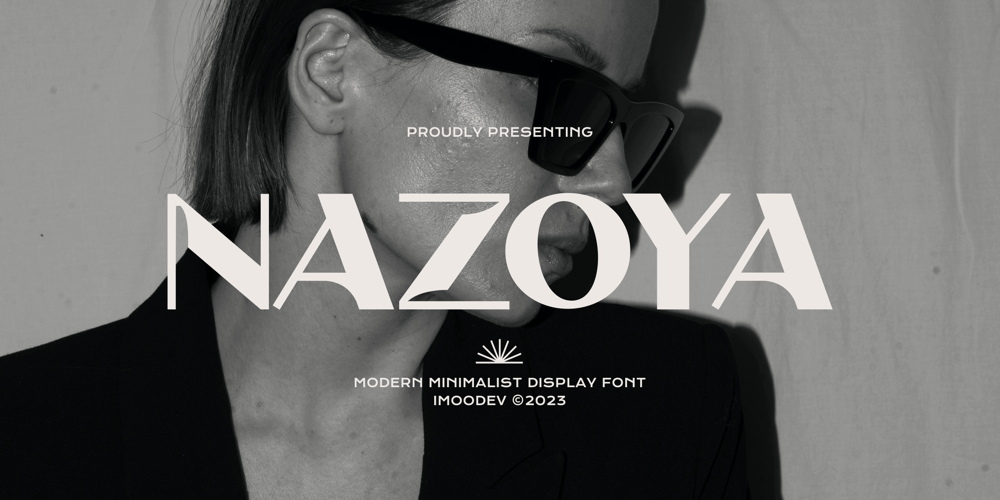
Nazoya
Nazoya font
Nazoya Font Family was designed by Aulia Savira Putri and published by Imoodev. Nazoya contains 1 styles and family package options. Nazoya – a elegant display font with simple, clean, and visual elegance specially designed for elegant-themed projects, perfectly suitable for creating simple, clean, lifestyle design.